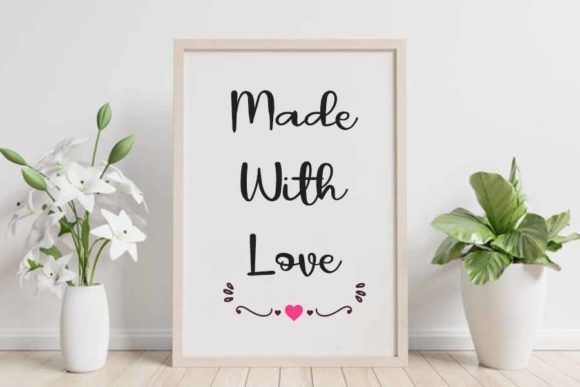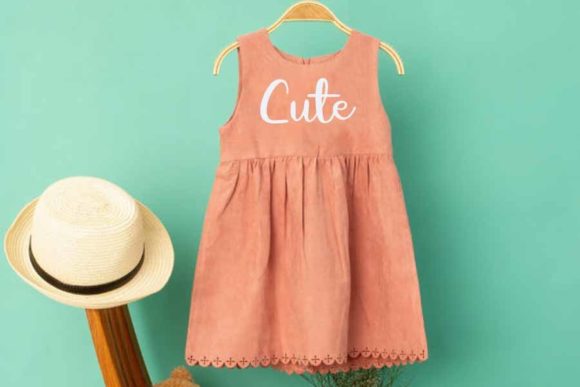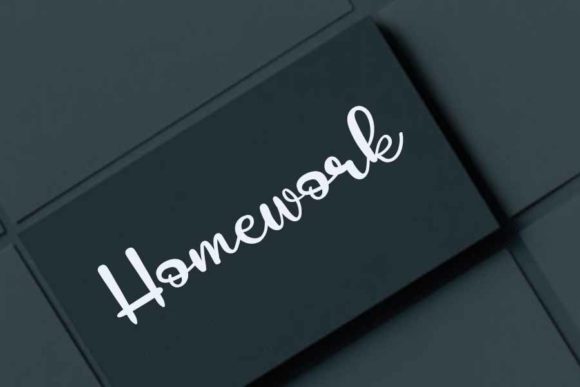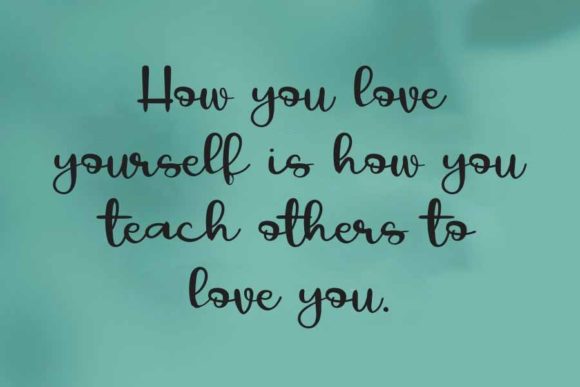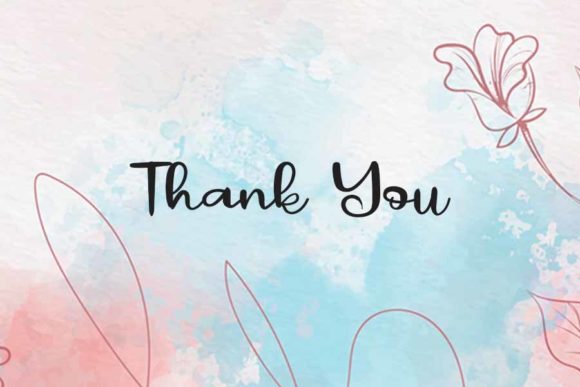
Discover the Elegance of Alligator Font: A Perfect Choice for Designers and Crafters
In the vast world of typography, certain fonts stand out for their unique charm and versatility. One such font that has captured the hearts of designers and crafters alike is the Alligator Font. This beautiful typeface boasts a feminine and elegant look, making it an ideal choice for a variety of design projects, from logos and invitations to blogs and headlines.
The Allure of Alligator Font
Alligator Font is characterized by its graceful lines, delicate curves, and a certain je ne sais quoi that adds a touch of sophistication to any design. Its feminine appeal makes it particularly well-suited for projects that require a soft, yet impactful aesthetic. Whether you’re creating a logo for a boutique, designing an invitation for a wedding, or crafting a blog that showcases your personal style, Alligator Font is sure to impress.
One of the key advantages of Alligator Font is its versatility. While it’s inherently elegant and feminine, it can also be used to create striking headlines that demand attention. This adaptability makes it a valuable addition to any designer’s toolkit, as it can be employed across a wide range of projects and applications.
Perfect for Logos
When it comes to creating a logo, the font you choose can significantly impact the overall look and feel of your brand. Alligator Font, with its elegant and refined appearance, is perfect for logos that need to convey a sense of luxury, sophistication, or femininity. Its unique charm can help your brand stand out in a crowded marketplace, making it an excellent choice for boutiques, beauty brands, and lifestyle businesses.
Ideal for Invitations
Invitations are a wonderful way to set the tone for an event, and the font you choose can play a crucial role in conveying the theme and style. Alligator Font is an excellent choice for invitations, particularly for weddings, baby showers, and other celebrations where elegance and sophistication are paramount. Its delicate curves and feminine appeal can add a touch of romance and whimsy to your designs.
Great for Blogs and Headlines
For bloggers and content creators, choosing the right font can enhance the readability and aesthetic appeal of your site. Alligator Font can be used to create engaging headlines that draw readers in, while its elegant appearance can add a touch of personality to your blog’s design. Whether you’re writing about fashion, lifestyle, or beauty, this font can help you connect with your audience and establish your brand’s voice.
Tips for Using Alligator Font
To make the most of Alligator Font, consider the following tips:
- Pair it with contrasting fonts: Combining Alligator Font with a more straightforward, sans-serif font can create visual interest and enhance readability.
- Experiment with colors: While Alligator Font looks stunning in its classic form, don’t be afraid to experiment with different colors and gradients to match your brand’s aesthetic.
- Use it sparingly: While Alligator Font is beautiful, it’s best used sparingly to avoid overwhelming your design. Use it for headlines or key elements to create impact.
Alligator Font is a beautiful and versatile typeface that offers designers and crafters a unique opportunity to add elegance and sophistication to their projects. Its feminine appeal, combined with its ability to create striking headlines, makes it an excellent choice for a wide range of applications. Whether you’re designing a logo, creating an invitation, or crafting a blog, Alligator Font is sure to enhance your design and leave a lasting impression.